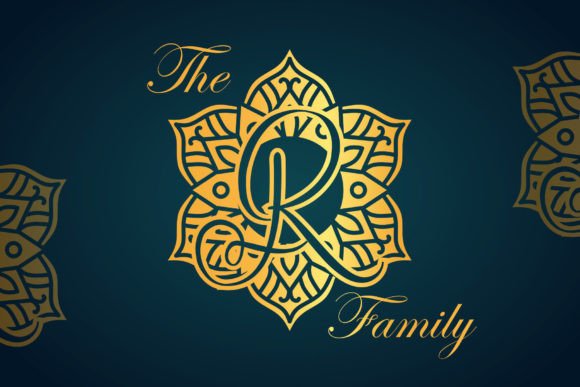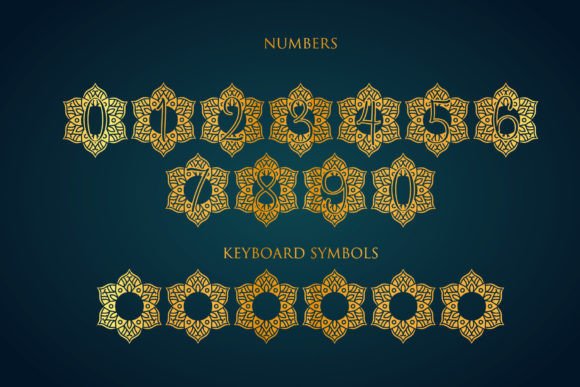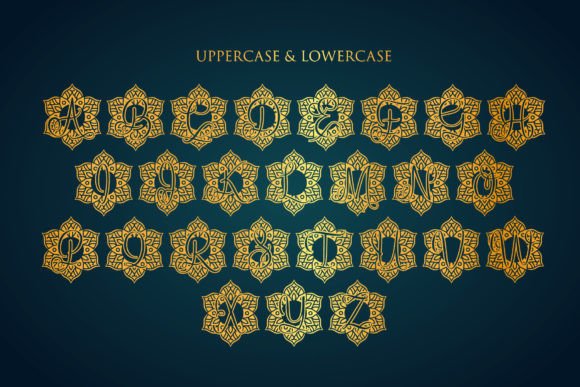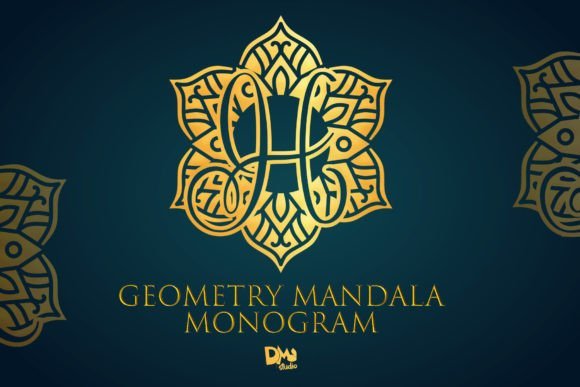
Introduction to Geometry Mandala Monogram Font
Geometry Mandala Monogram is a stylish and unique decorative font inspired by the elegance of mandala art.
With its classy look, this font has the potential to elevate any creation .
Key Features of Geometry Mandala Monogram Font
Why Choose Geometry Mandala Monogram Font?